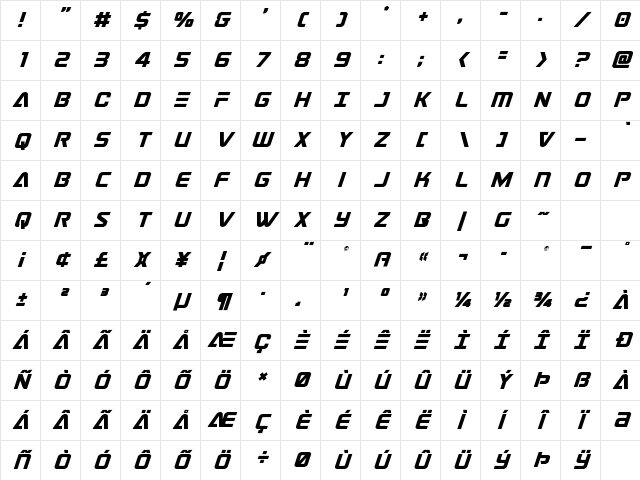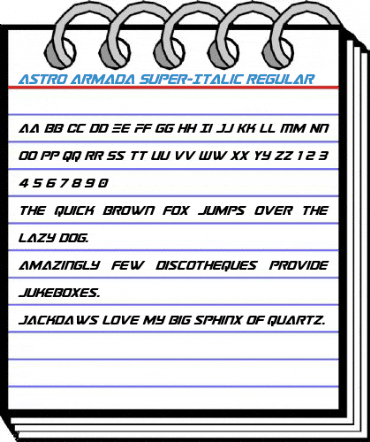
Complete Astro Armada Super-Italic Regular glyph index. Displaying only characters natively supported by Astro Armada Super-Italic Regular font.
Astro Armada Super-Italic is a composed and adaptable typeface that performs quietly and consistently across a wide range of design contexts. The slanted form adds forward momentum and visual energy.